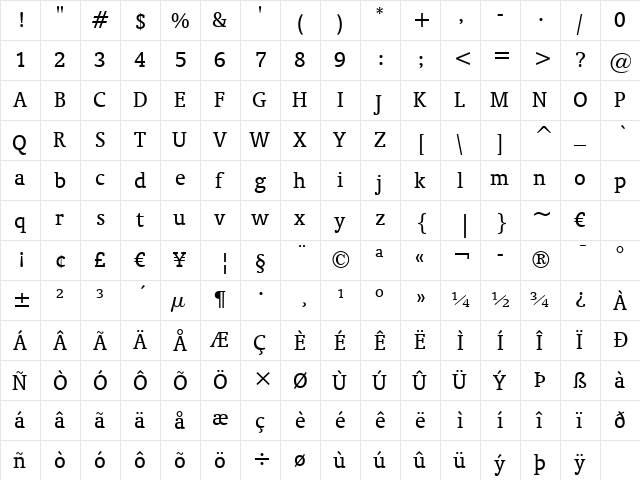
Oranda BT Roman
Design Context for Oranda BT Typeface
Oranda BT takes a measured approach to typography — its balanced proportions and neutral character make it a reliable workhorse for both digital and print work.